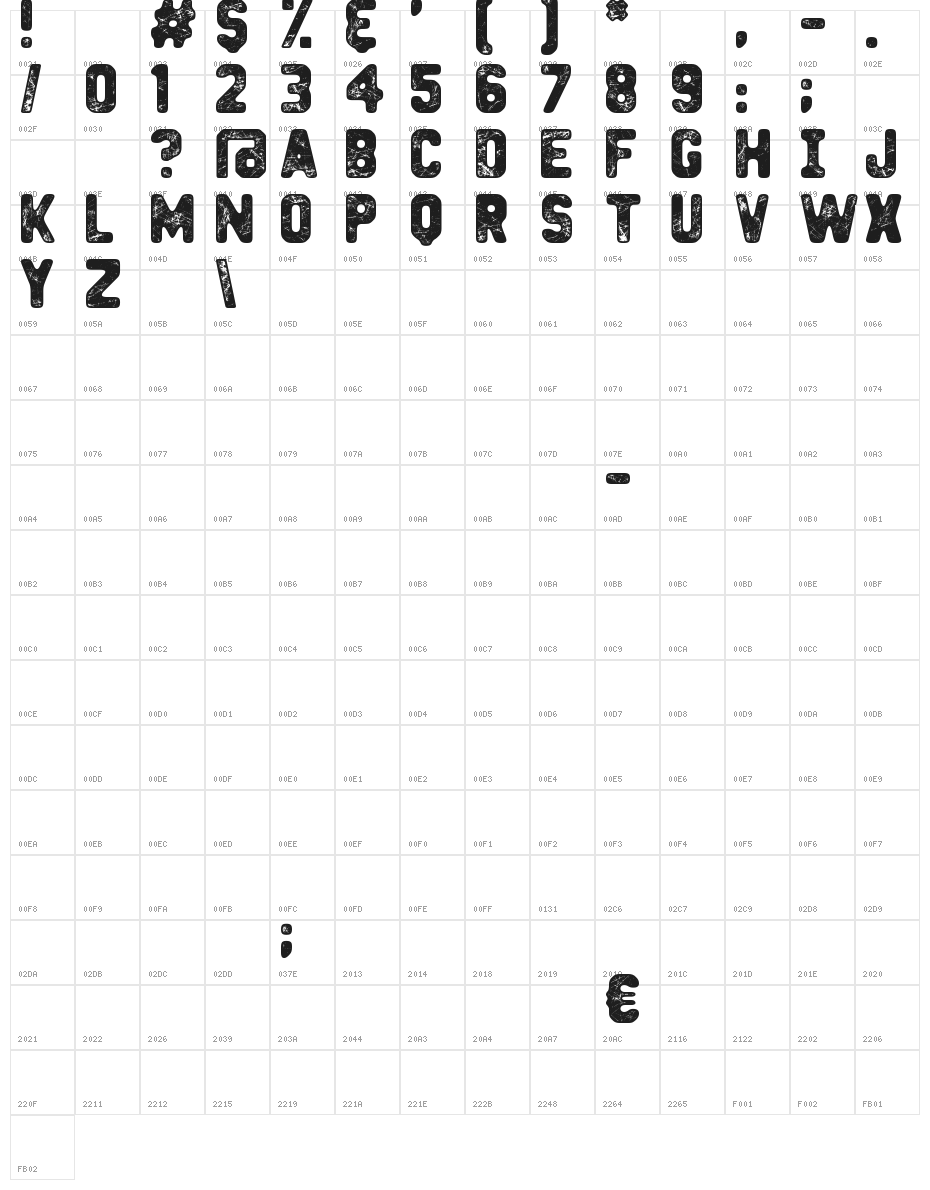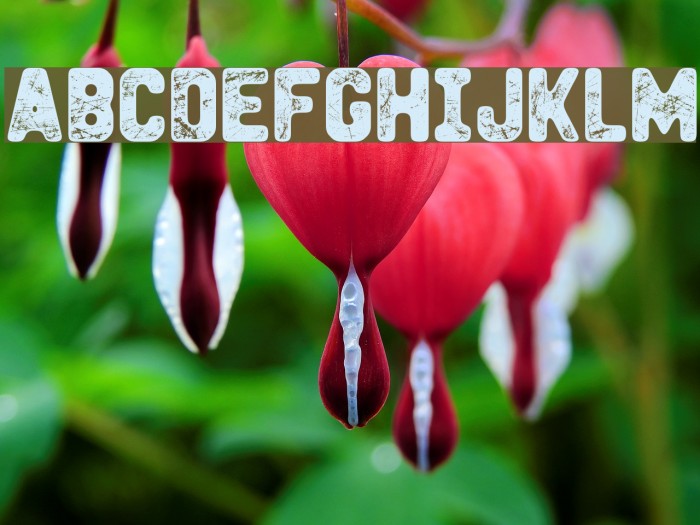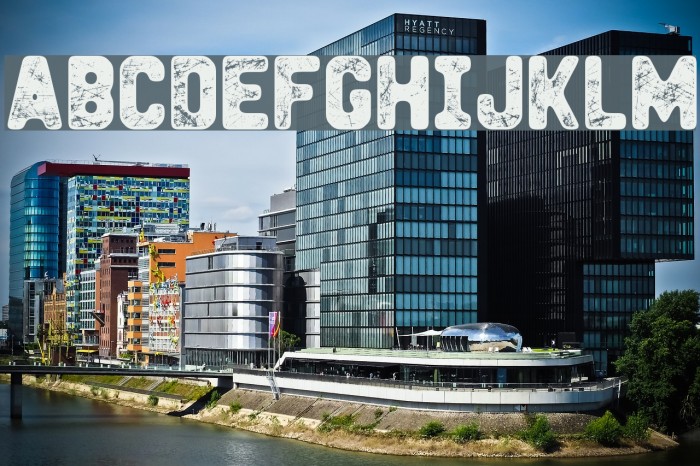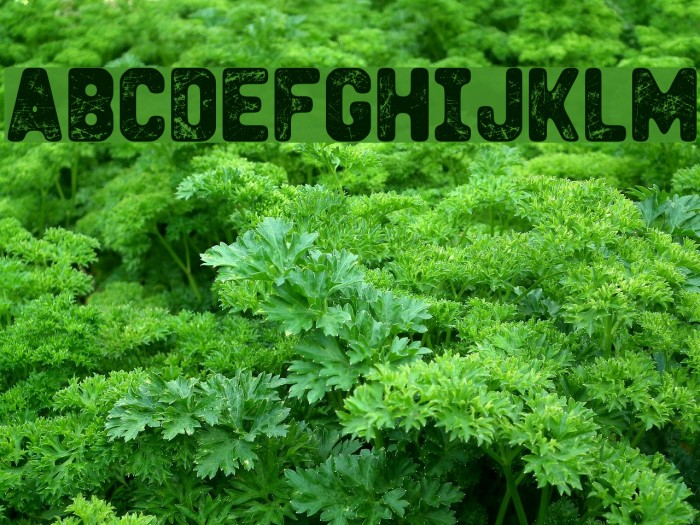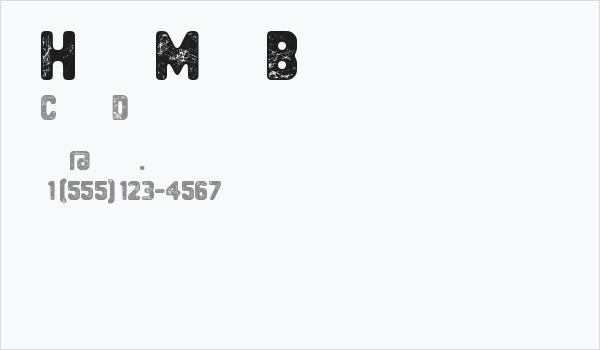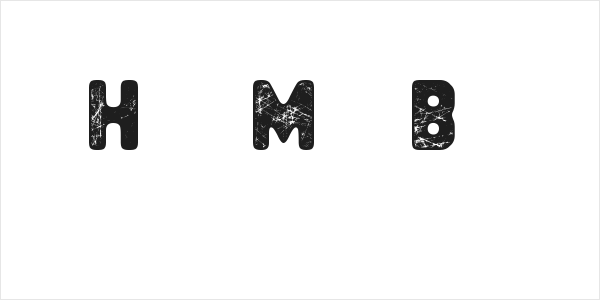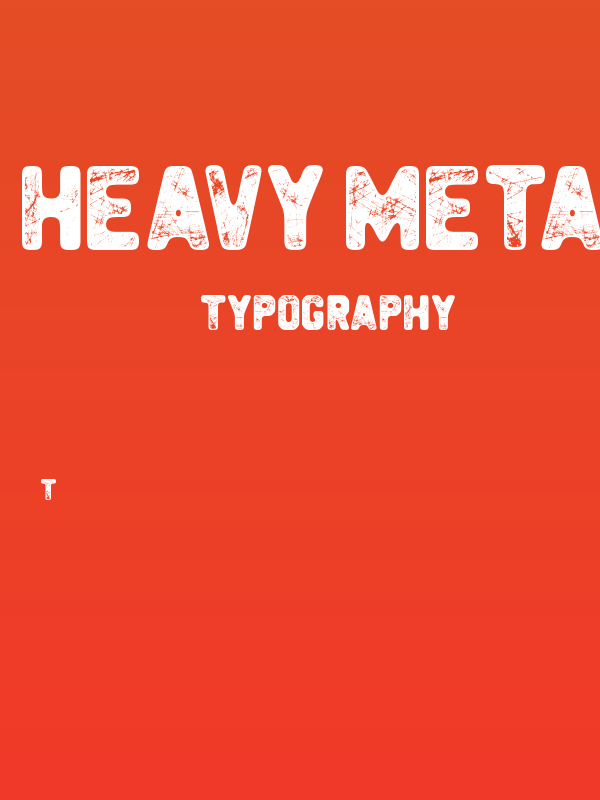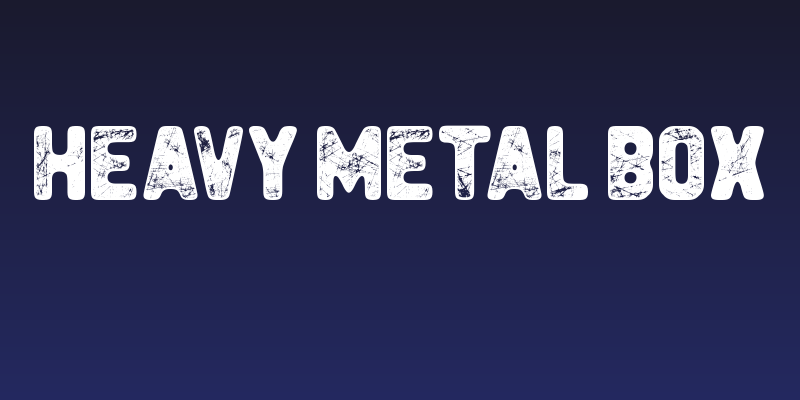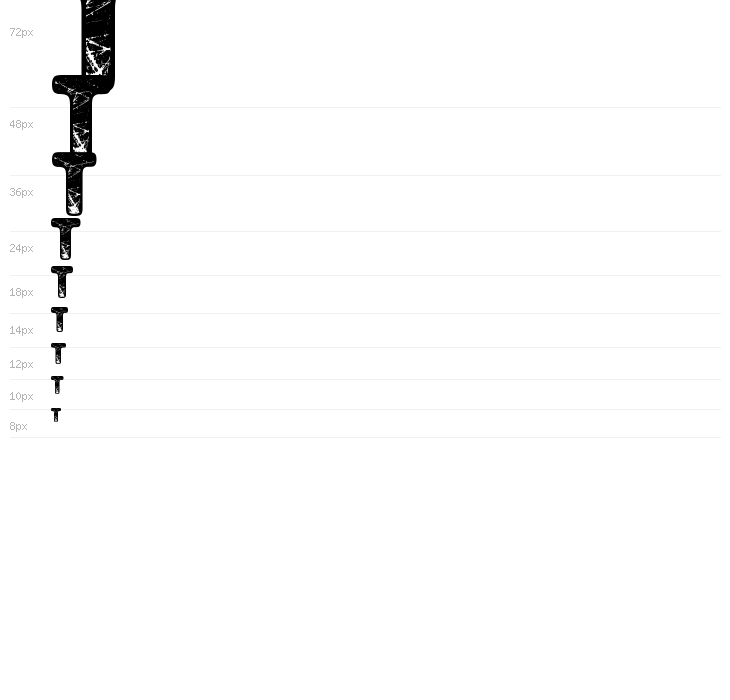
Heavy Metal Box Font
| Progetti proposti | Ideal for music album covers, event posters, branding for industrial products, or any project needing a strong, edgy look. |